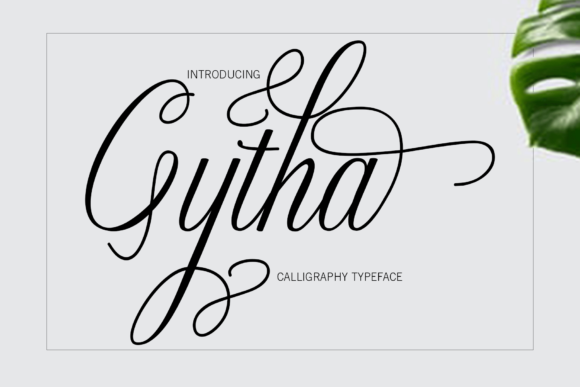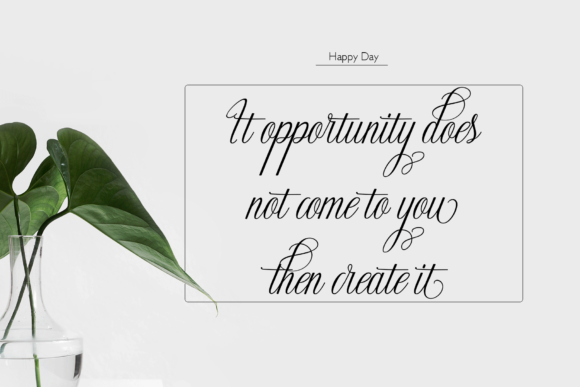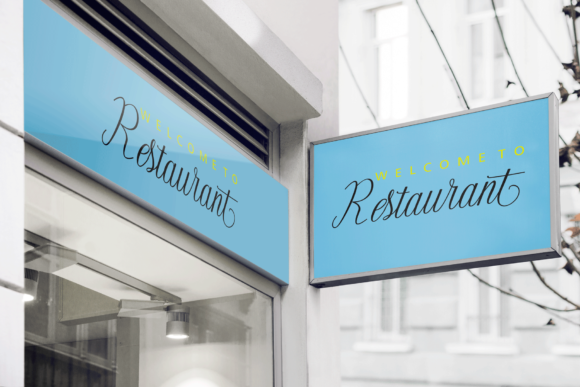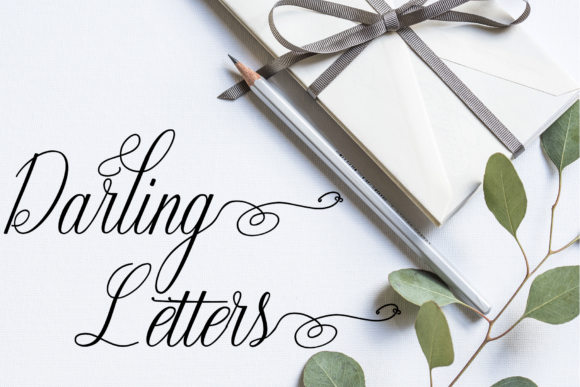
About Gytha Font
Gytha is an exceptional handwritten font that exudes elegance and charm. With its flowing and smooth lines, varying baseline, and beautiful glyphs, it offers a delightful touch to any design project. Here are some creative ways to utilize Gytha and bring your projects to new heights:
1. Wedding Invitations: Use Gytha to design stunning and romantic wedding invitations, setting the perfect tone for a memorable celebration.
2. Thank You Cards: Craft heartfelt and sophisticated thank you cards with Gytha, expressing gratitude in an elegant manner.
3. Quotes and Typography Art: Create captivating typography art and quote posters using Gytha, infusing inspirational messages with an artistic flair.
4. Greeting Cards: Design elegant and eye-catching greeting cards for various occasions, making each card a work of art.
5. Logos and Branding: Apply Gytha to logos and branding materials, adding a touch of timeless elegance to your brand identity.
6. Business Cards: Design memorable and stylish business cards with Gytha, making a strong first impression on potential clients and partners.
7. Personal Stationery: Use Gytha for personal stationery, creating sophisticated letterheads and notecards.
8. Book Covers: Apply Gytha to book covers, adding a touch of sophistication to your book’s design.
9. Social Media Graphics: Create captivating and elegant social media posts with Gytha, attracting attention to your content.
10. Art Prints: Design exquisite art prints using Gytha, offering art lovers beautiful pieces to adorn their spaces.
11. Packaging and Labels: Utilize Gytha for packaging and label designs, adding an elegant and unique touch to your products.
12. Event Invitations: Use Gytha to design invitations for special events and gatherings, creating an air of refined style.
13. Signage and Displays: Apply Gytha to signage and displays, making an elegant statement in various settings.
14. Magazine Headlines: Use Gytha for magazine headlines, adding a touch of sophistication to editorial designs.
15. Website and Blog Headers: Implement Gytha in website banners and blog headers, elevating the visual appeal of your online presence.
Gytha’s combination of elegance, flow, and contemporary flair makes it an ideal choice for a wide range of design projects. Its PUA encoding allows easy access to all glyphs and swashes, providing even more creative possibilities. Whether you’re working on formal invitations or adding an artistic touch to your social media graphics, Gytha will undoubtedly elevate your projects to new heights and leave a lasting impression on your audience.